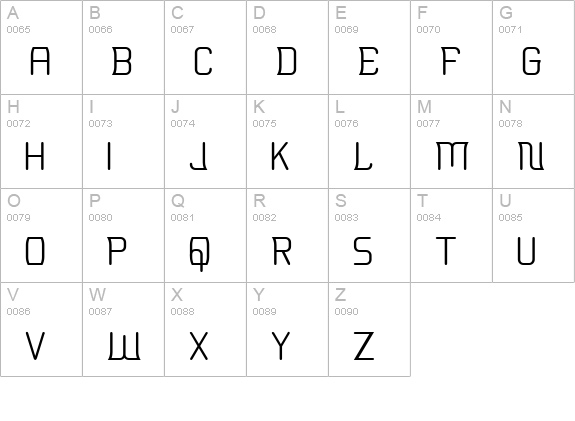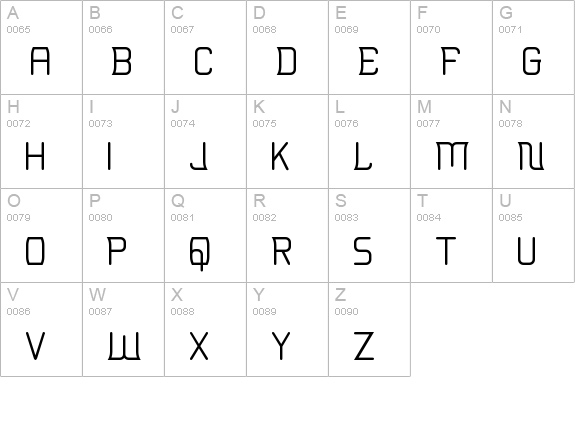
Erinal Font Details
Erinal font is a modern and stylish typeface that exudes elegance and sophistication. With its clean lines and sleek design, Erinal is perfect for a wide range of design projects, from branding to editorial design. This versatile font offers a unique blend of classic and contemporary elements, making it suitable for both print and digital applications. What sets Erinal font apart is that it is available for free download at FontsMarket.com. This means that you can easily access this high-quality font without any cost, making it a valuable addition to your font library. Whether you're a professional designer or a hobbyist looking to elevate your projects, Erinal font is a fantastic choice that will make your designs stand out. Download Erinal font today and unleash your creativity with this exceptional typeface.